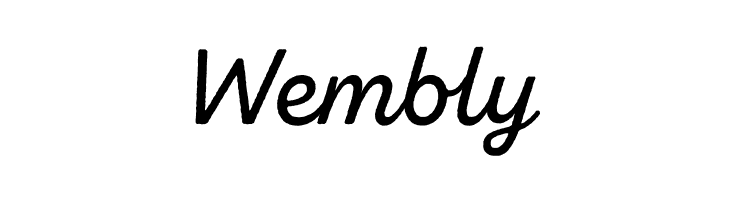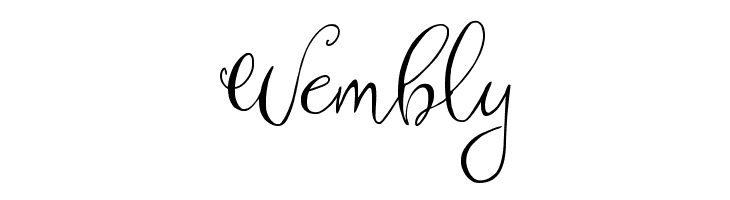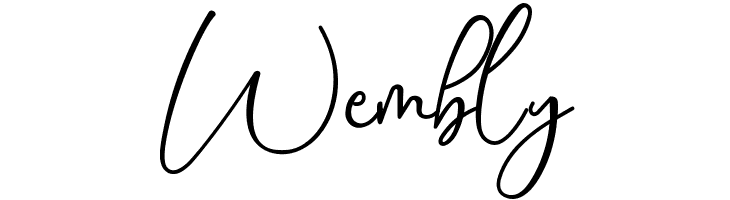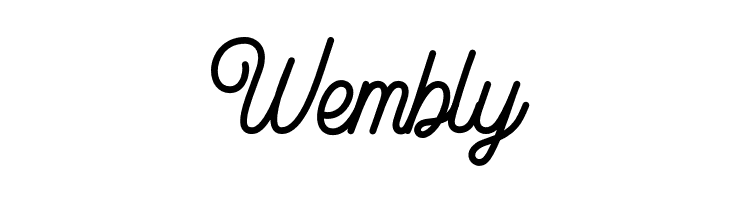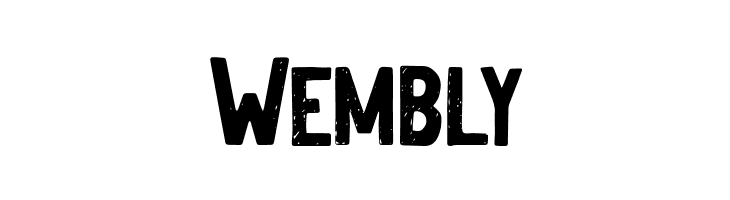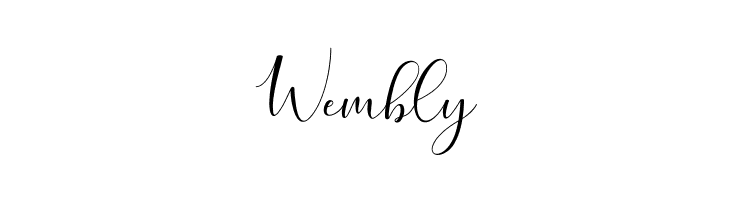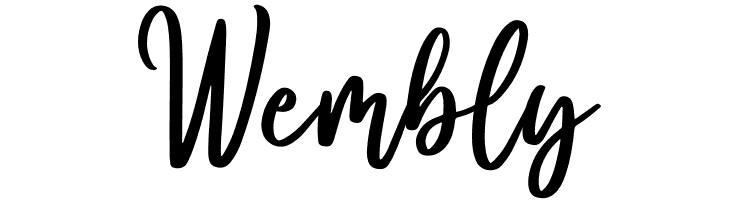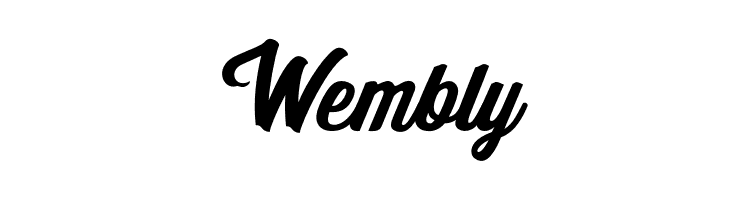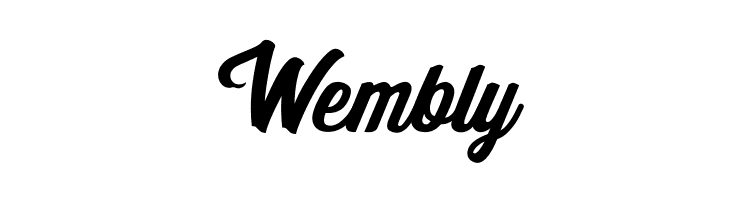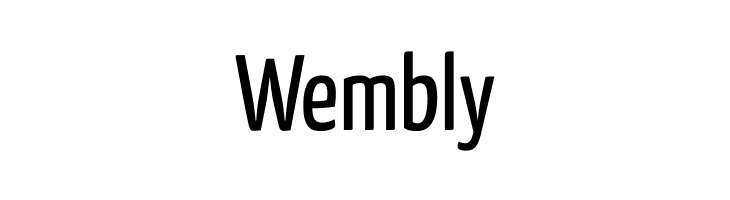
A lively and expressive script font with dynamic, fluid strokes.
A flowing, elegant script font with smooth curves and stylish flourishes.
A lively handwritten script font with fluid, connected strokes.
A flowing, cursive script with elegant loops and swashes.
A lively, expressive script font with bold, cursive strokes and playful loops.
A graceful and elegant script font with flowing lines and decorative curves.
A bold, brush-style font with dynamic, hand-painted strokes.
A charming and fluid script font with elegant, flowing letterforms.
A graceful script font with flowing, connected strokes and balanced contrast.
A whimsical, cursive script font with elegant, flowing strokes.
An elegant script font with flowing, handwritten-style strokes.
A dynamic and fluid script font with elegant, flowing letterforms.
A dynamic script font with flowing, cursive letterforms and varying stroke thickness.
A cursive script font with elegant, flowing lines and balanced proportions.
A bold, brushstroke-style font with a rough, textured appearance.
A fluid and elegant script font with interconnected letters and a natural handwriting style.
A bold, handwritten-style font with dynamic and expressive characters.